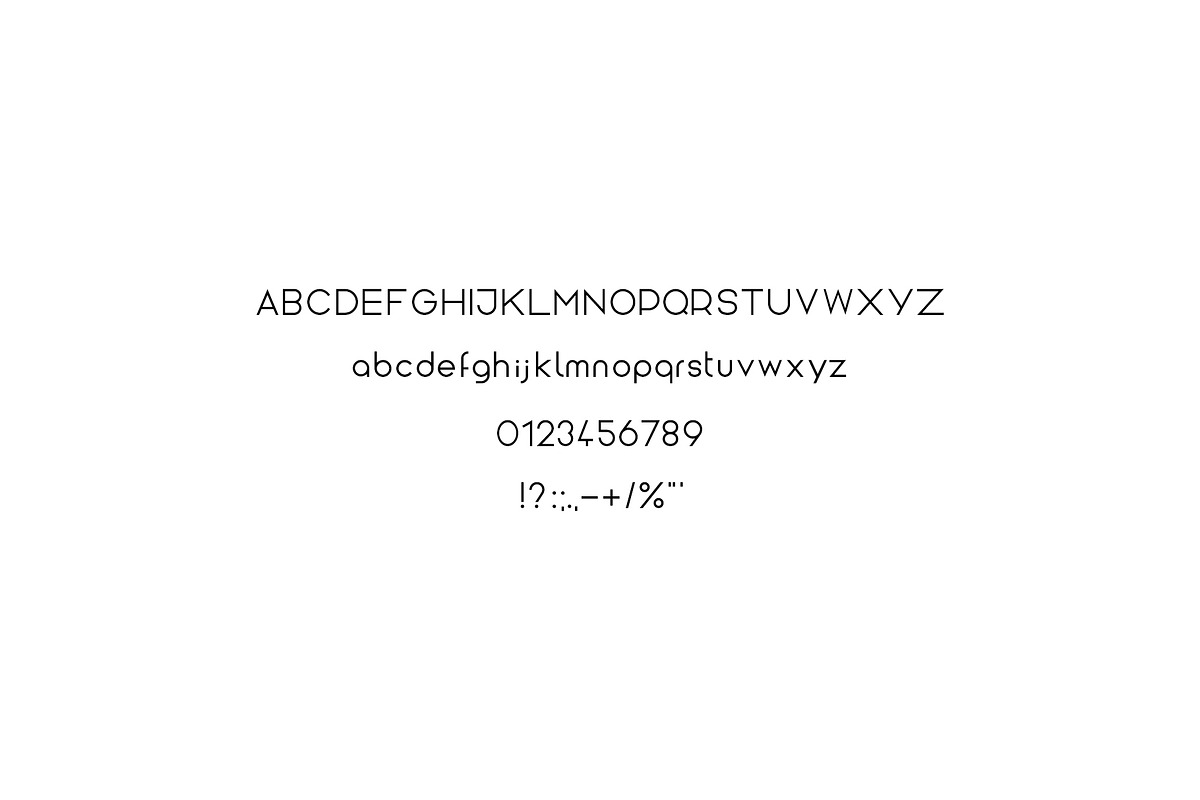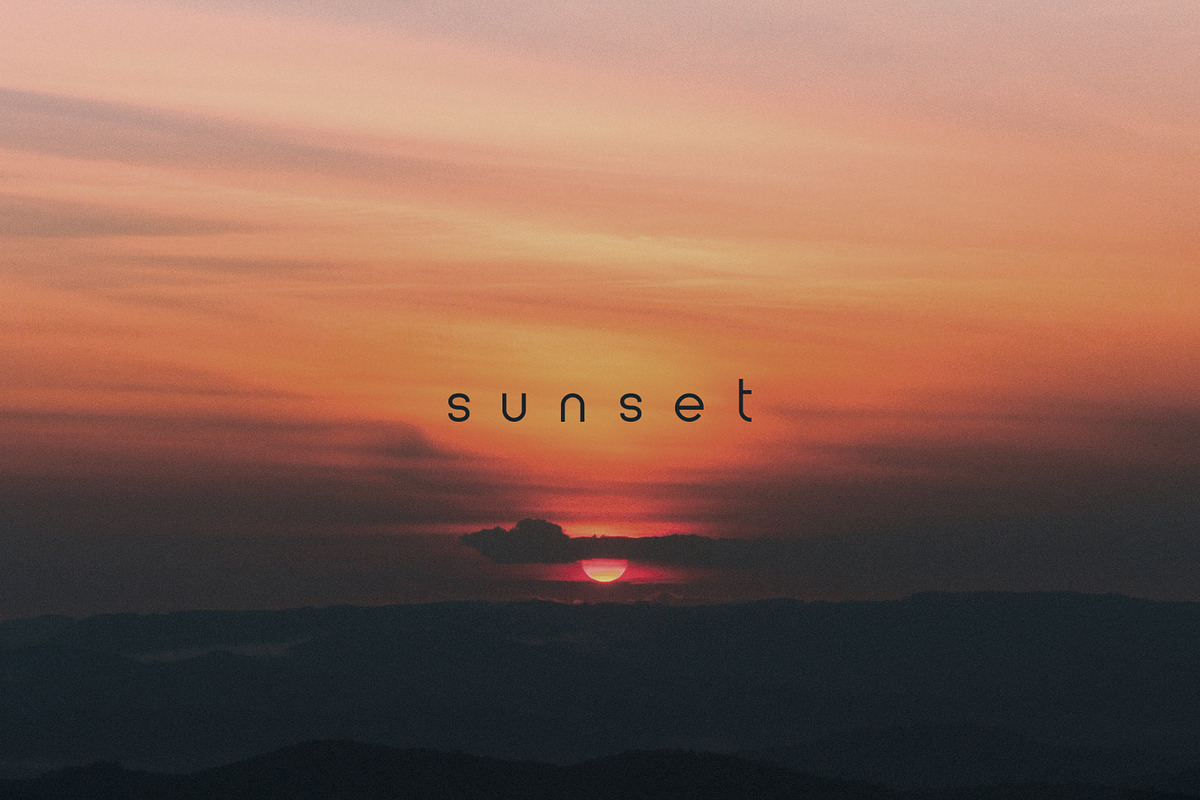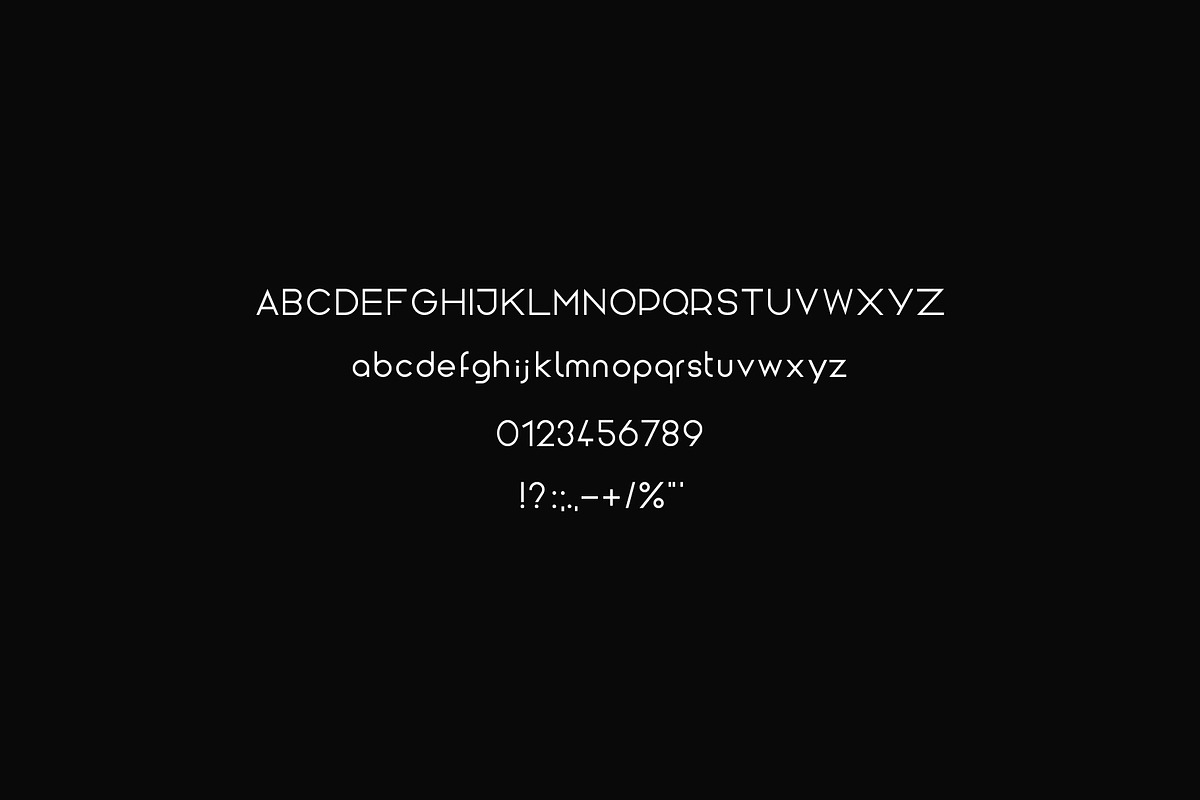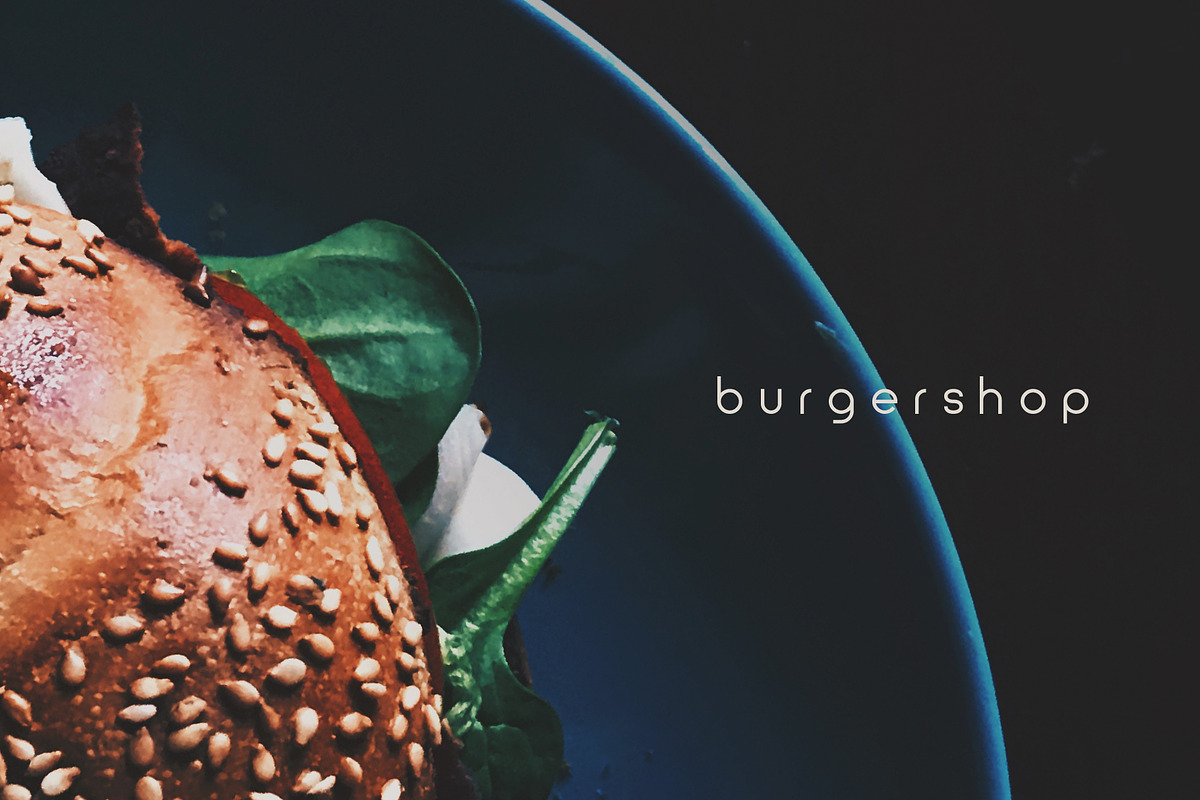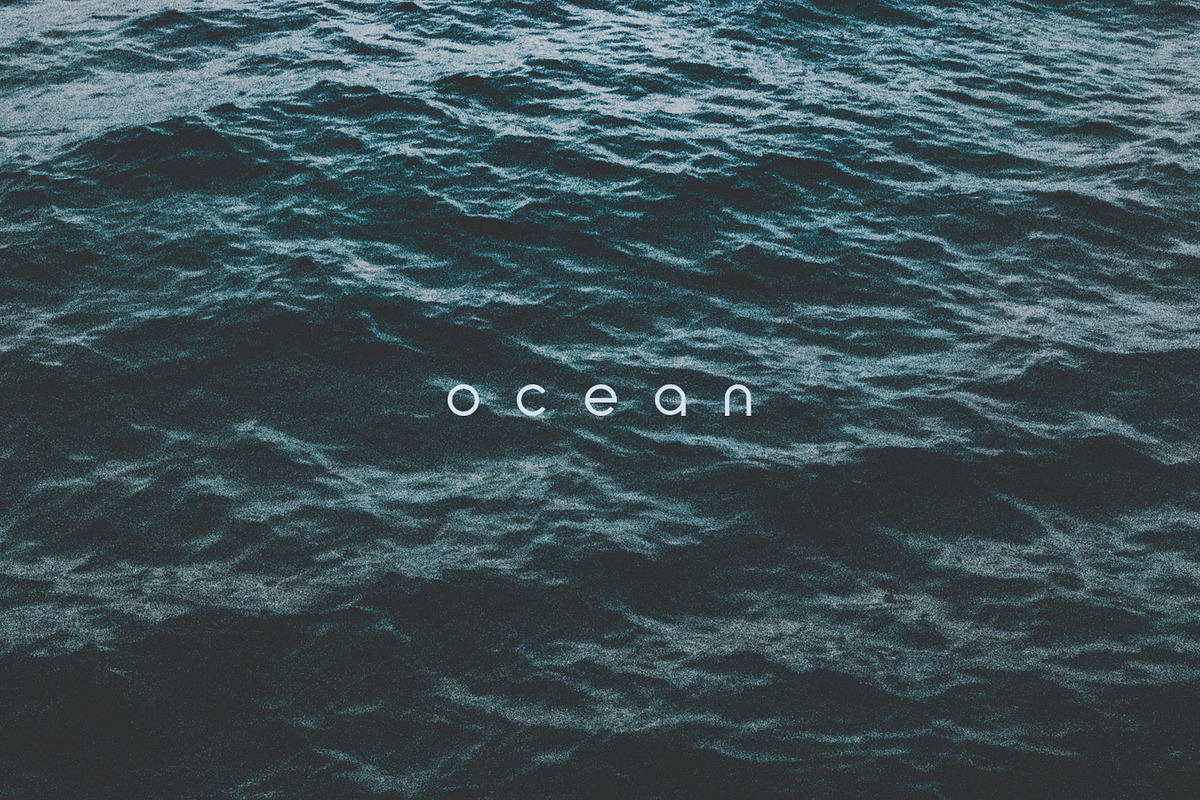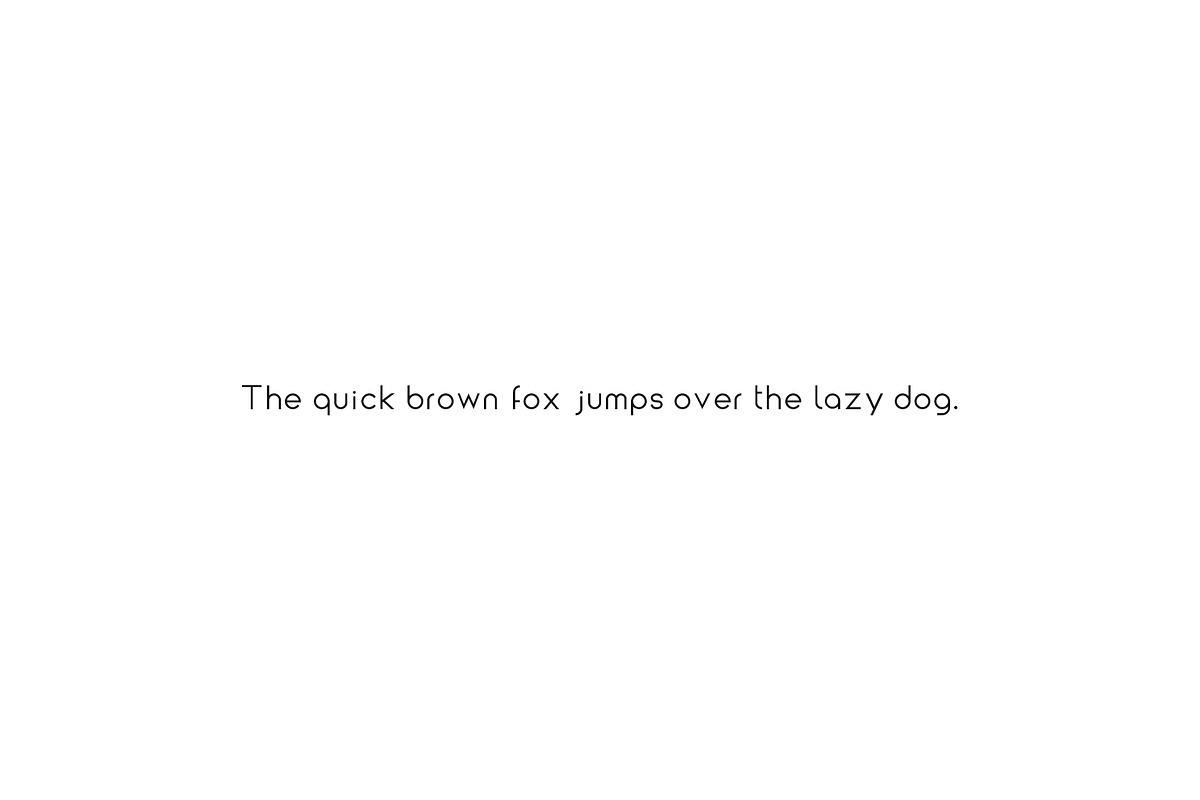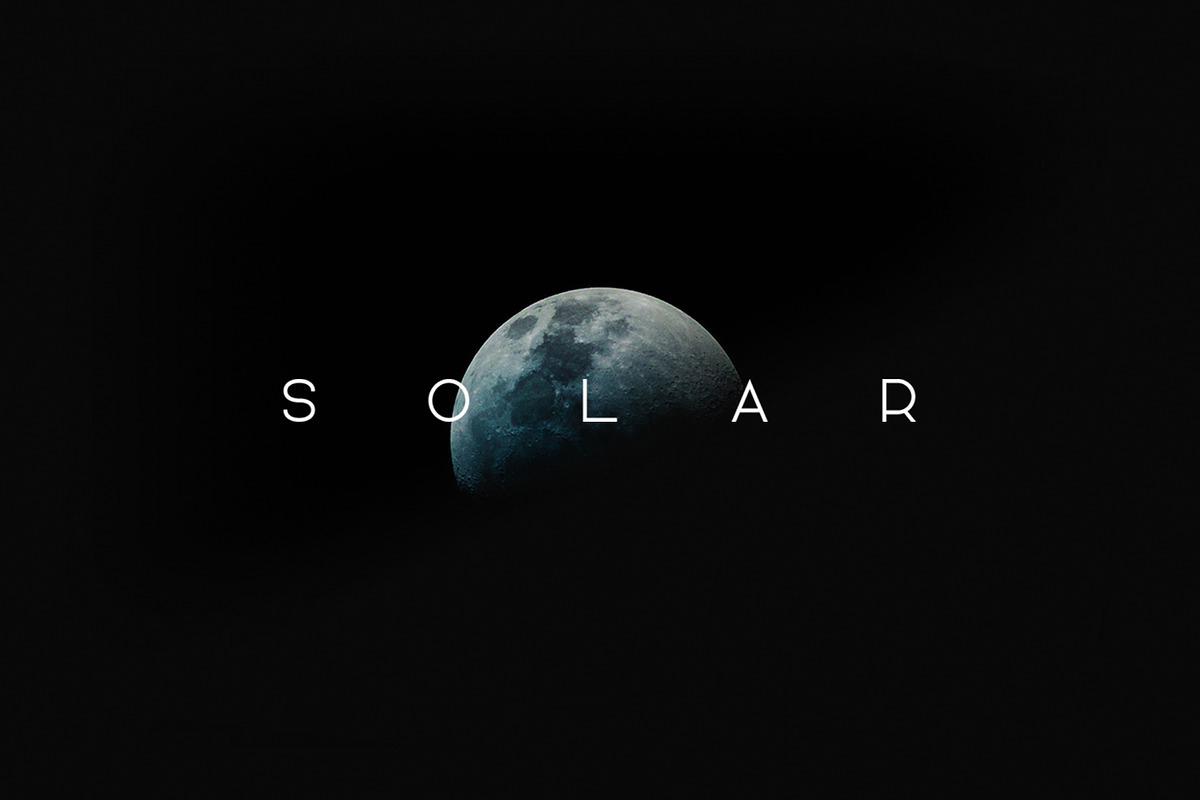
solar - a minimalistic font design
Solar is a minimalistic, sans serif font design. It includes upper- and lowercase letters, numbers as well as some additional characters.
Its main use will be for graphic design, posters or collages. Of course, you are free to use it forever you want, feel free. The minimalistic design of the font allows to use it in nearly any environment, it fits anything.